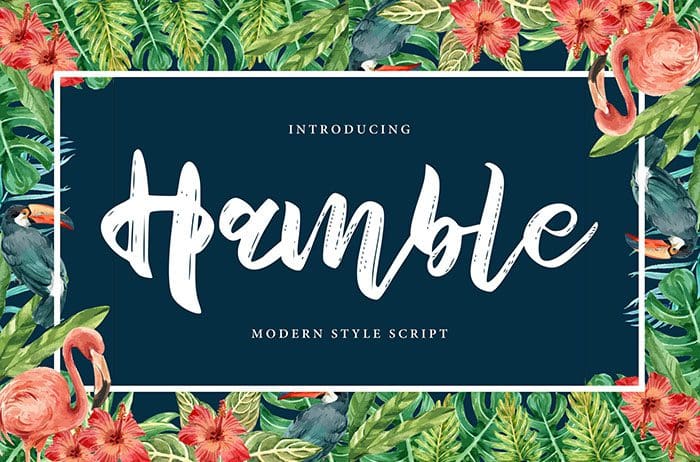
Hamble Script Font
Hamble is a playful sweet script font with beautiful swashes. Hamble includes a full set of lovely uppercase and lowercase letters. Thanks to Vunira for sharing this font. This font free for personal use only, if you need commercial use and full version please download in here.